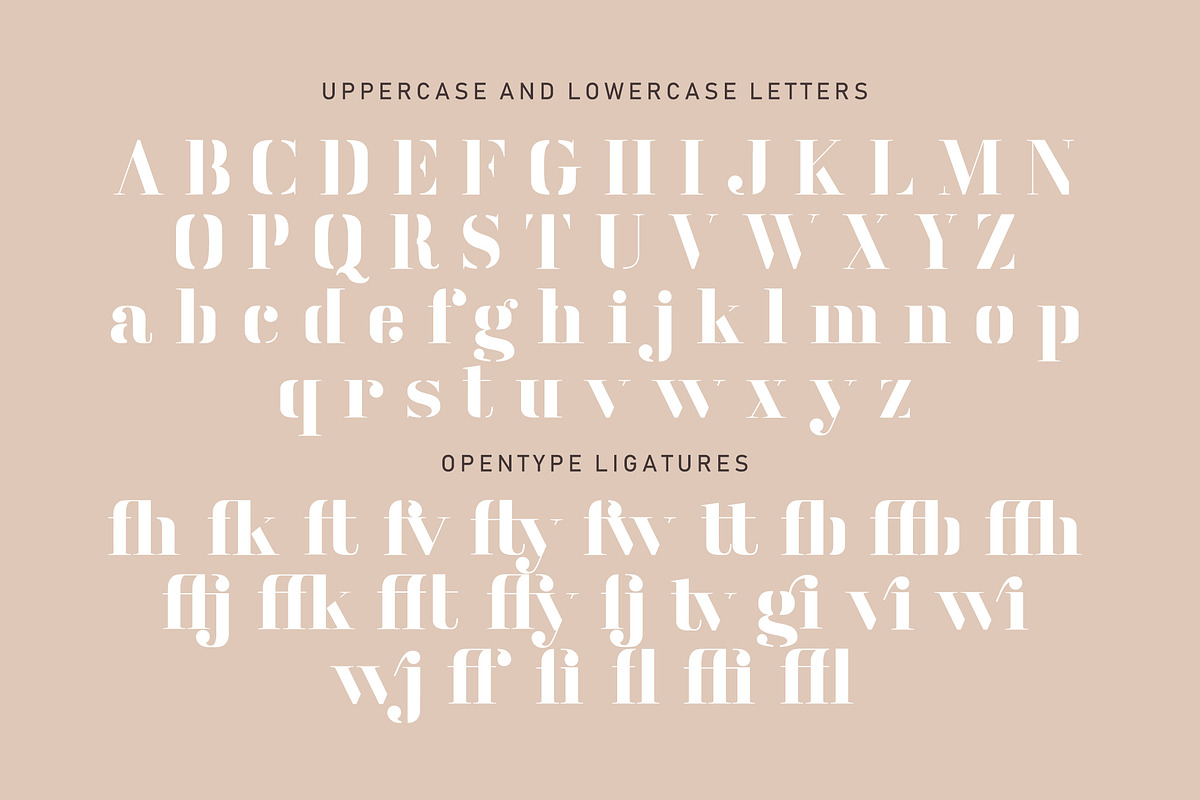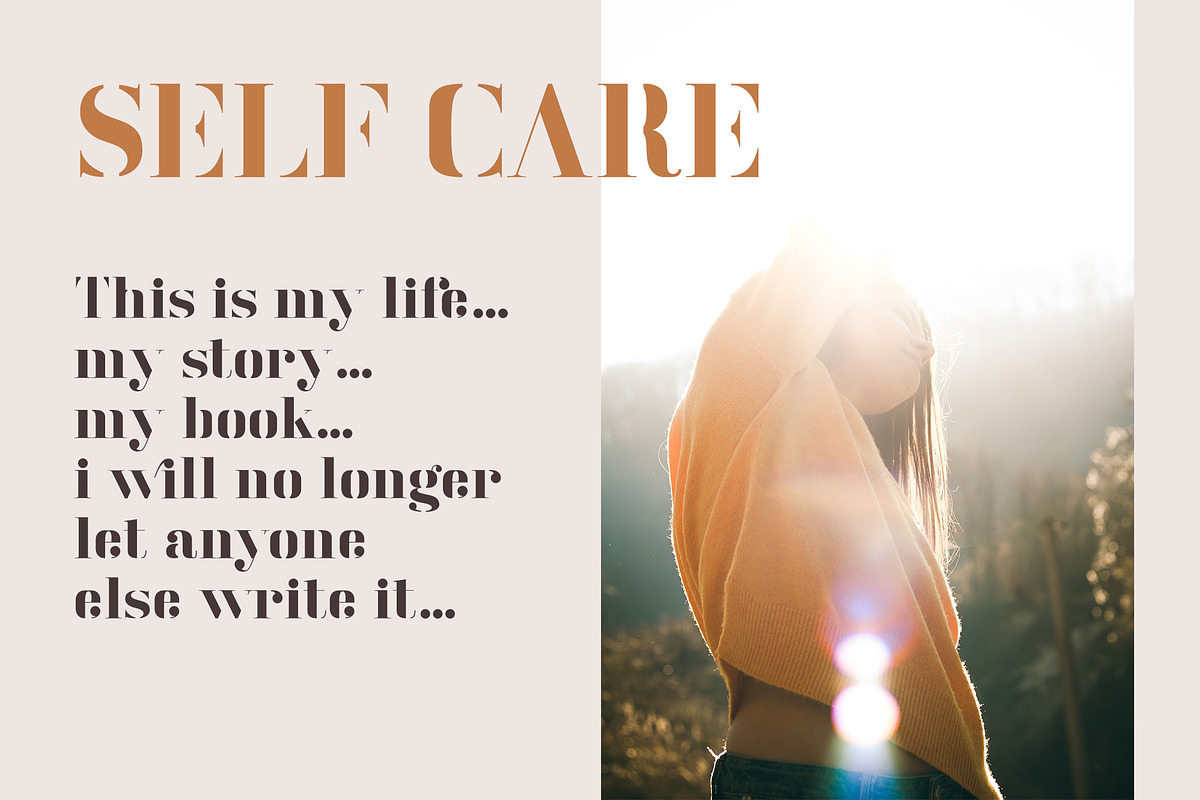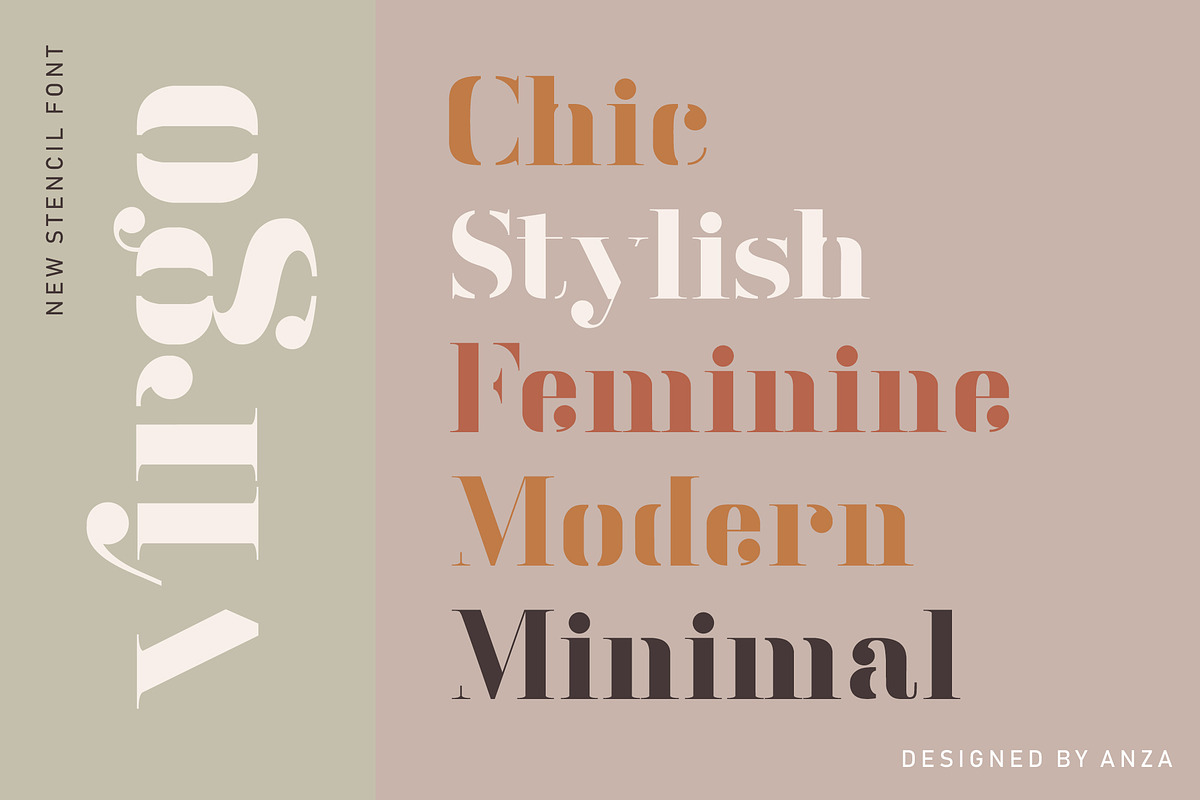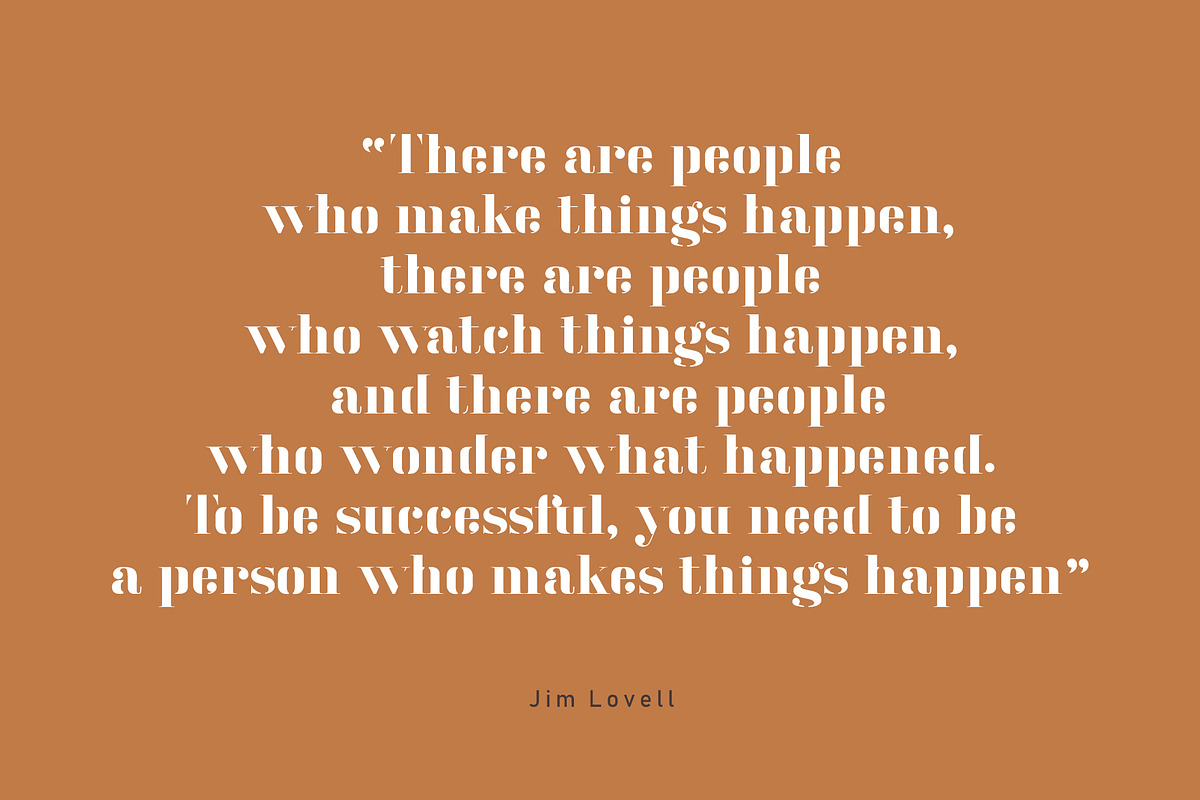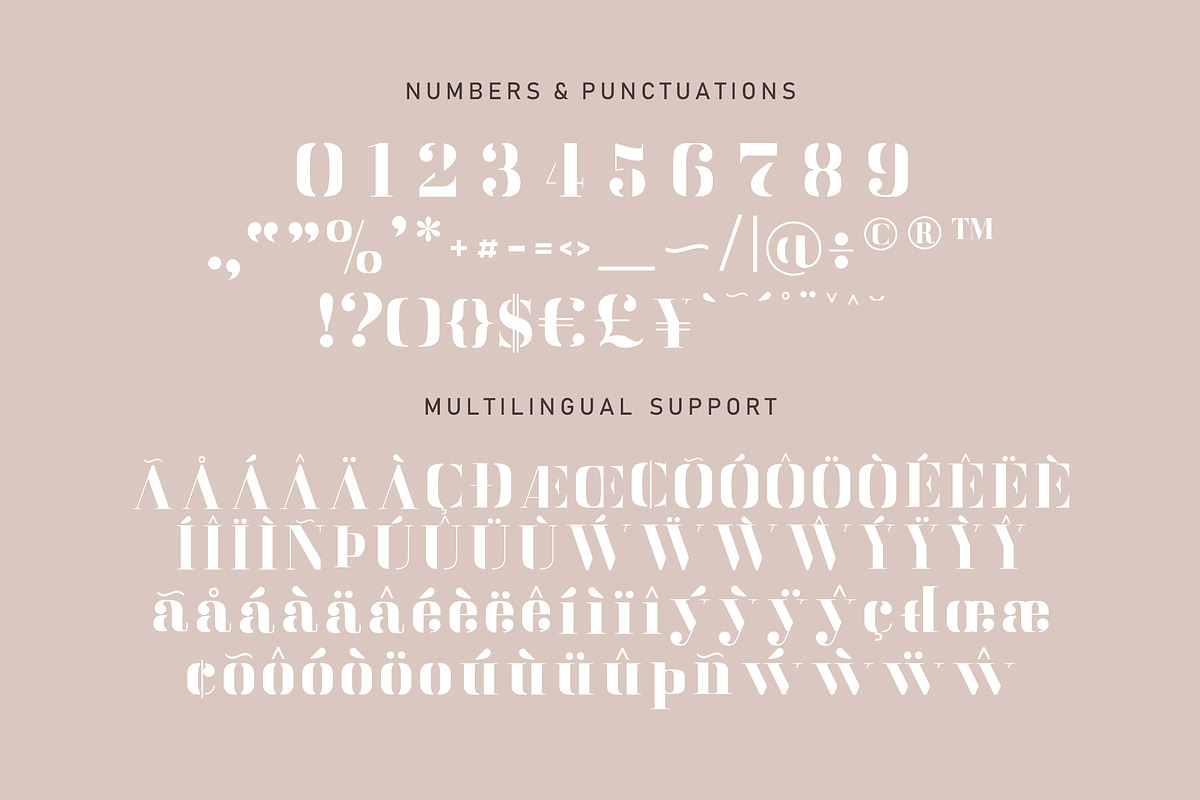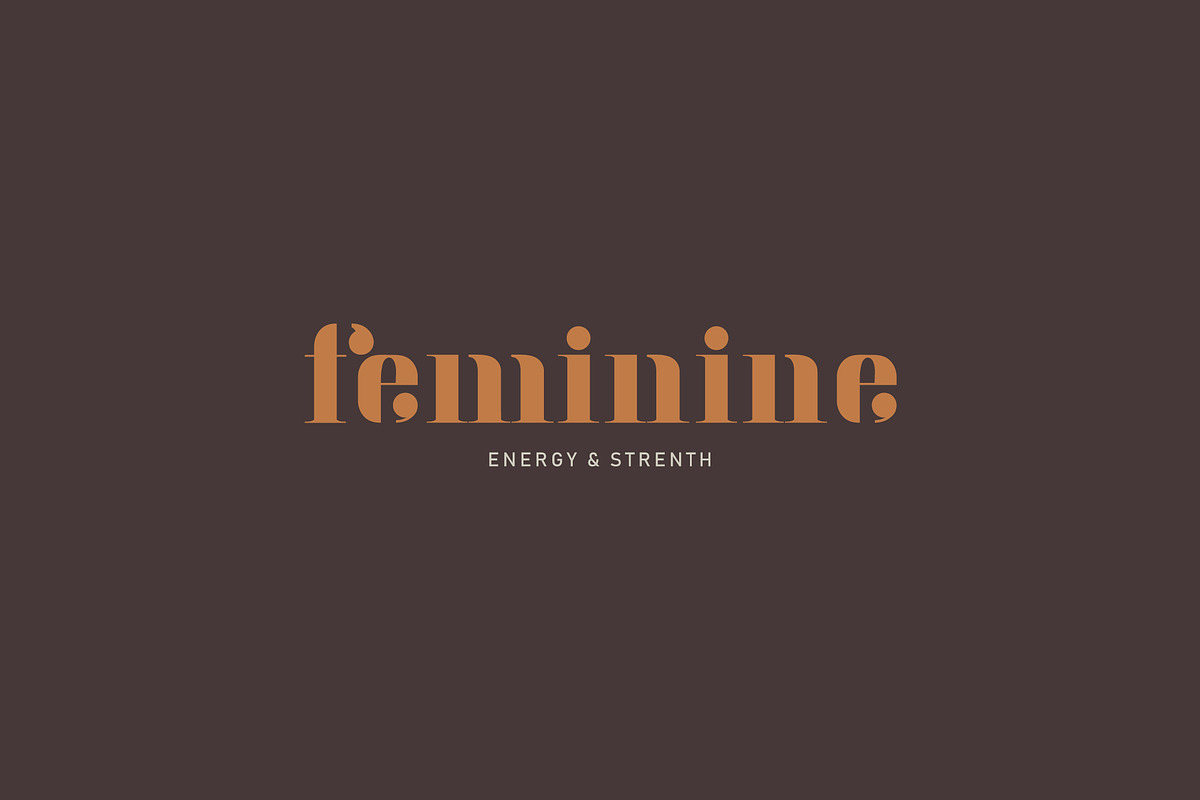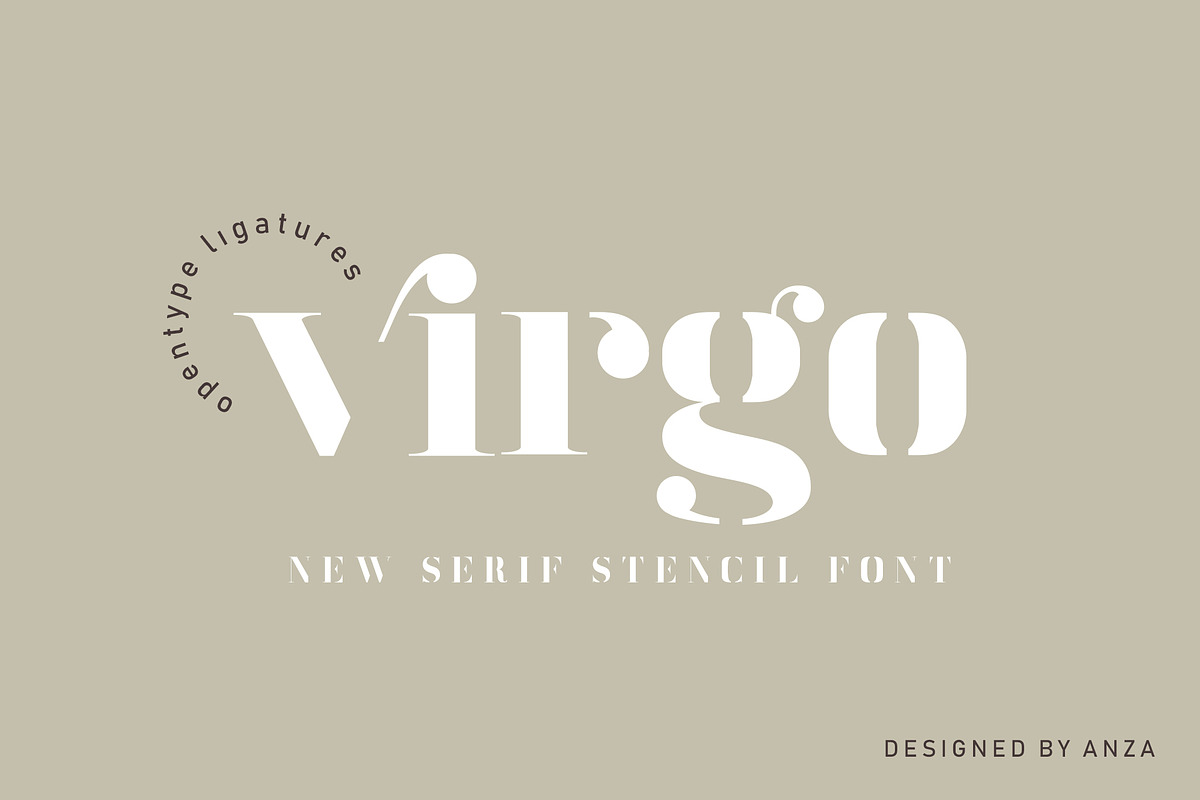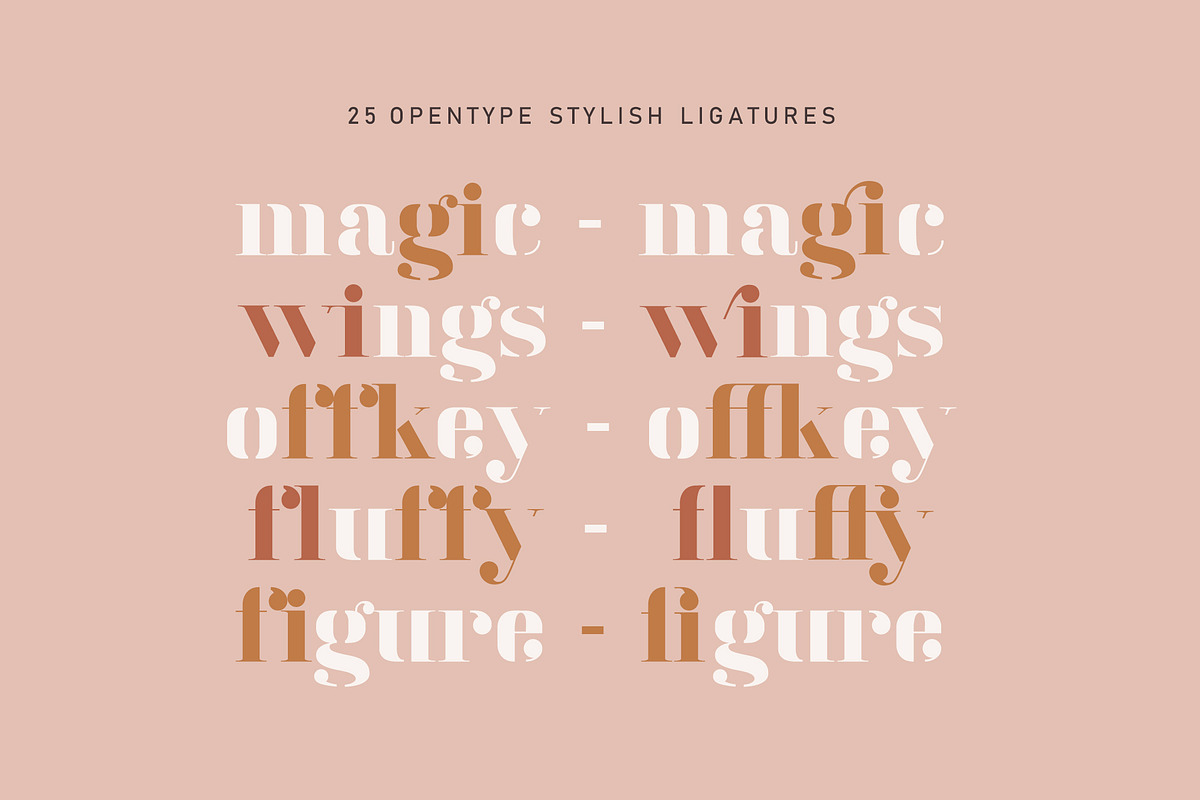
Virgo - New Serif Stencil Font
Virgo is new serif stencil font that is very universal and modern at the same time. It is perfect for designers looking to leave an impression. A simple but significant, perfect for feminine and minimal design. The owner of endless possibilities. Virgo is great for magazine publishing, fashion and art, works great in blogs, posters, flyers, logos, headlines, packaging, advertising, branding and so much more.
Virgo font has uppercase, lowercase letters, 25 opentype ligatures, numbers & basic punctuation, multilingual support (French, German, Italian, Norwegian, Portuguese, Spanish, Swedish, Swiss German). Font is provided in OTF, TTF and WOFF formats.